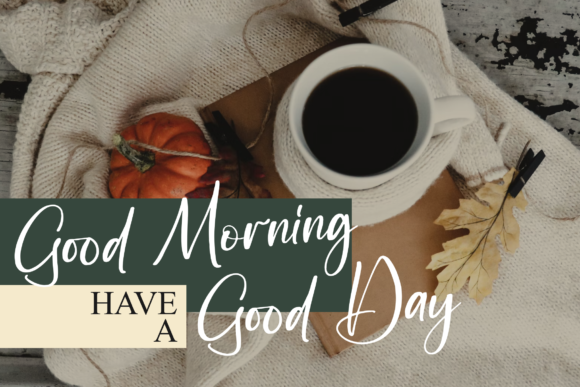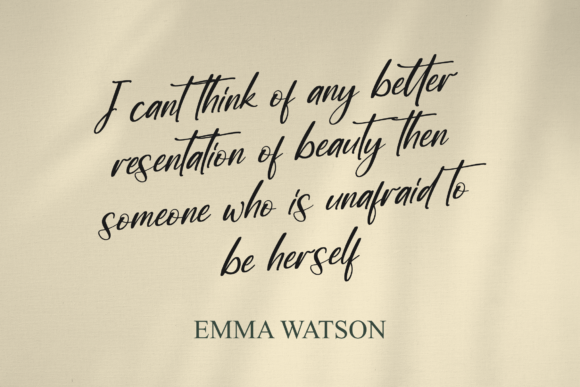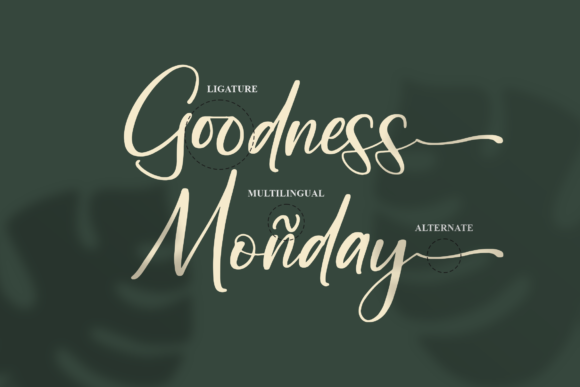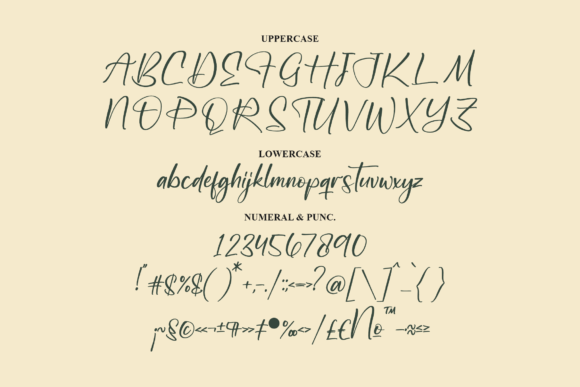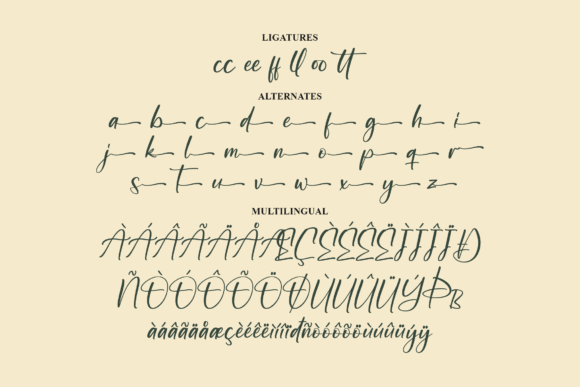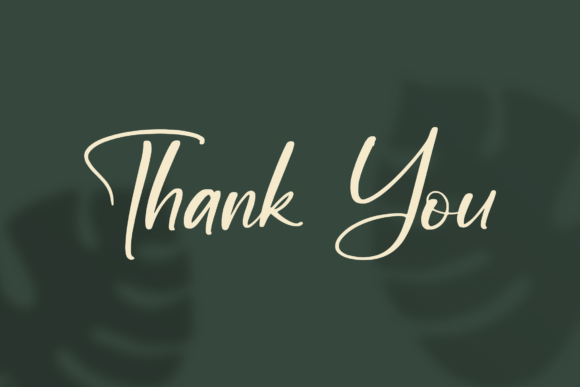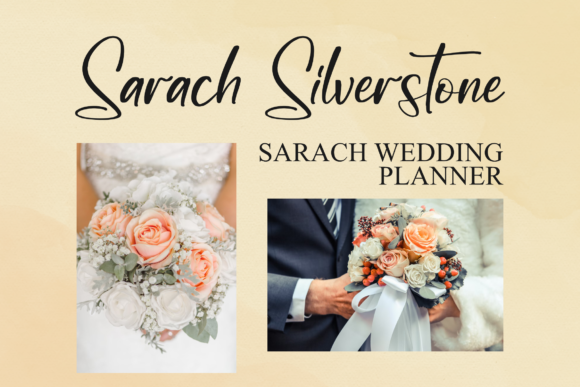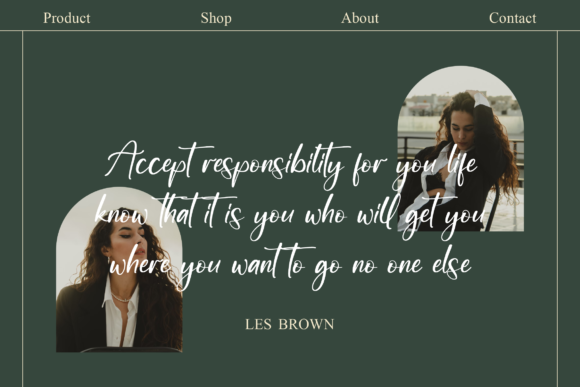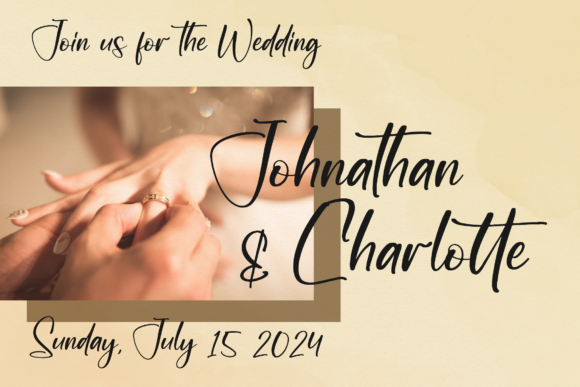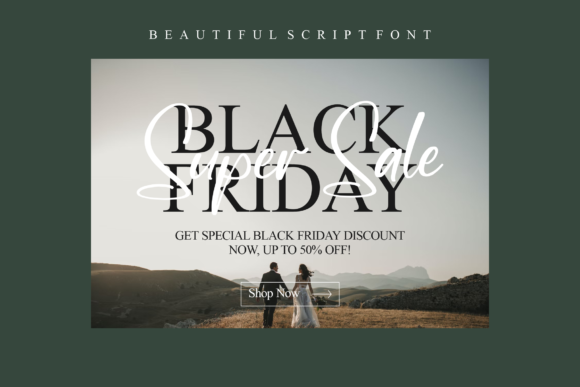
Benattias Font
About Benattias Font
Benattias is a stylish and dainty script font. It is suitable for any projects such as: logos, branding projects, label, photography, watermark, special events, and all your other lovely projects that need a beautiful script taste. This font is PUA encoded which means you can access all of the glyphs and swashes with ease!